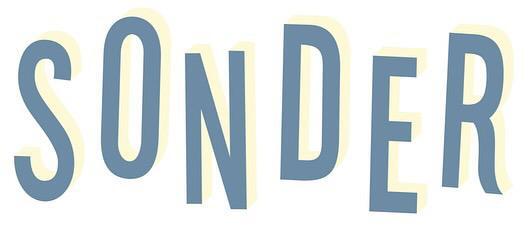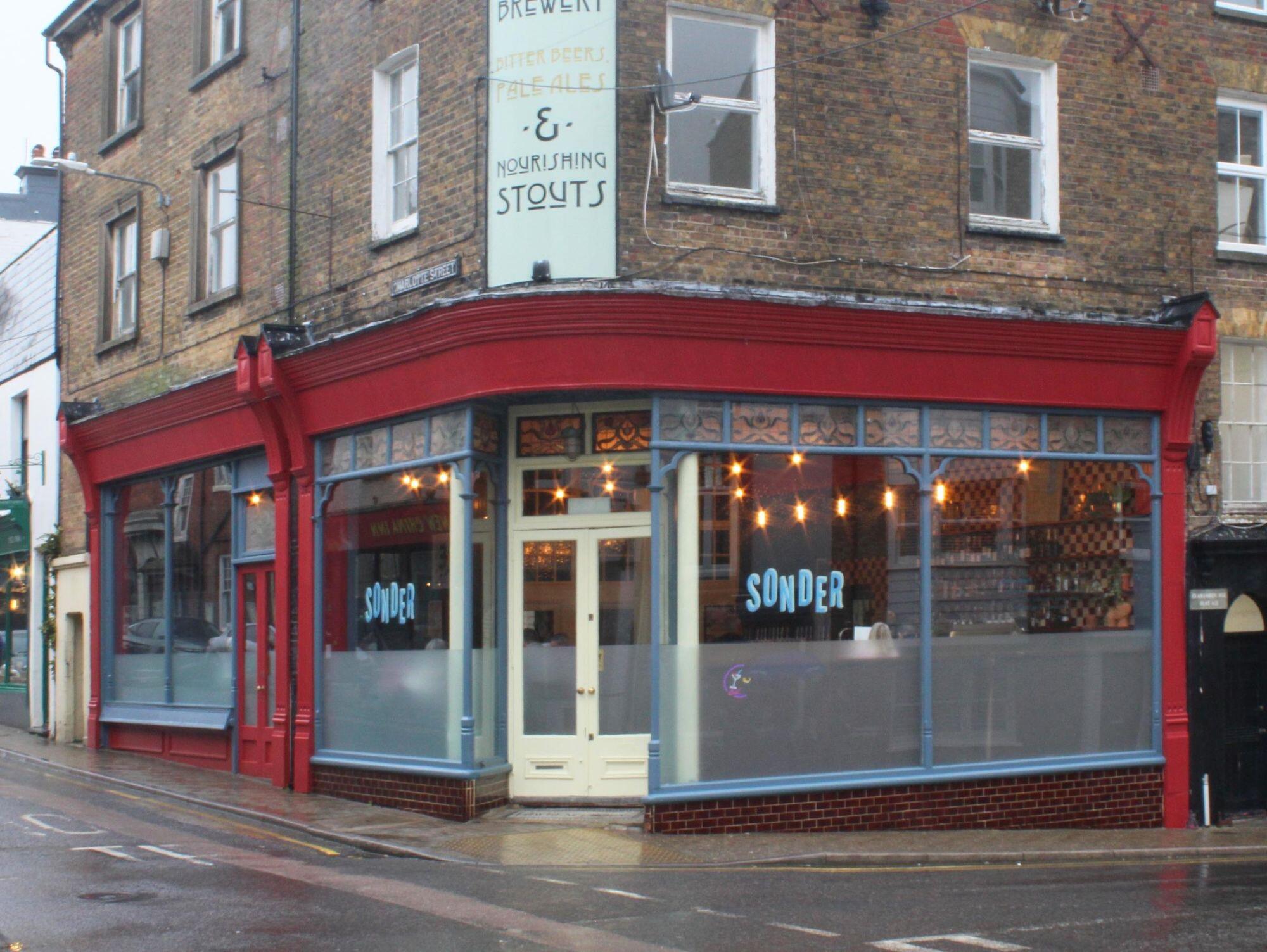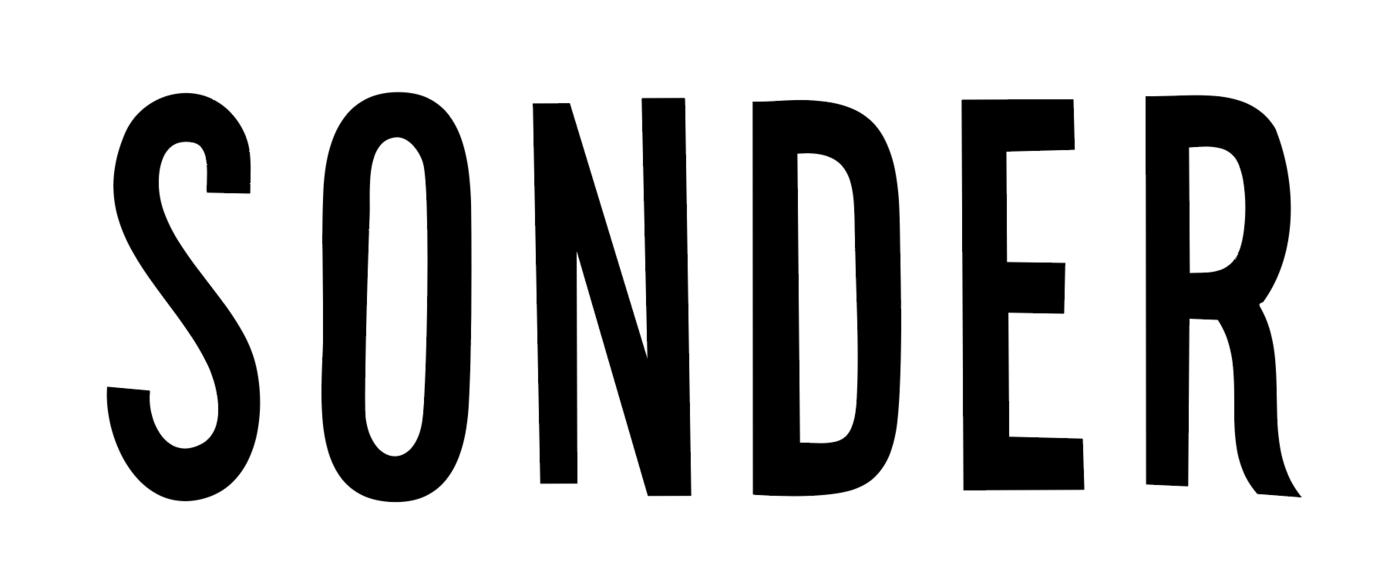
Looking for this condensed Typeface in a logo...
Looking for this condensed Typeface in a logo... The kick on the 'R' is particular.
It is a pub logo and the owner doesn’t know the typeface, someone else created it.
A photo for context.